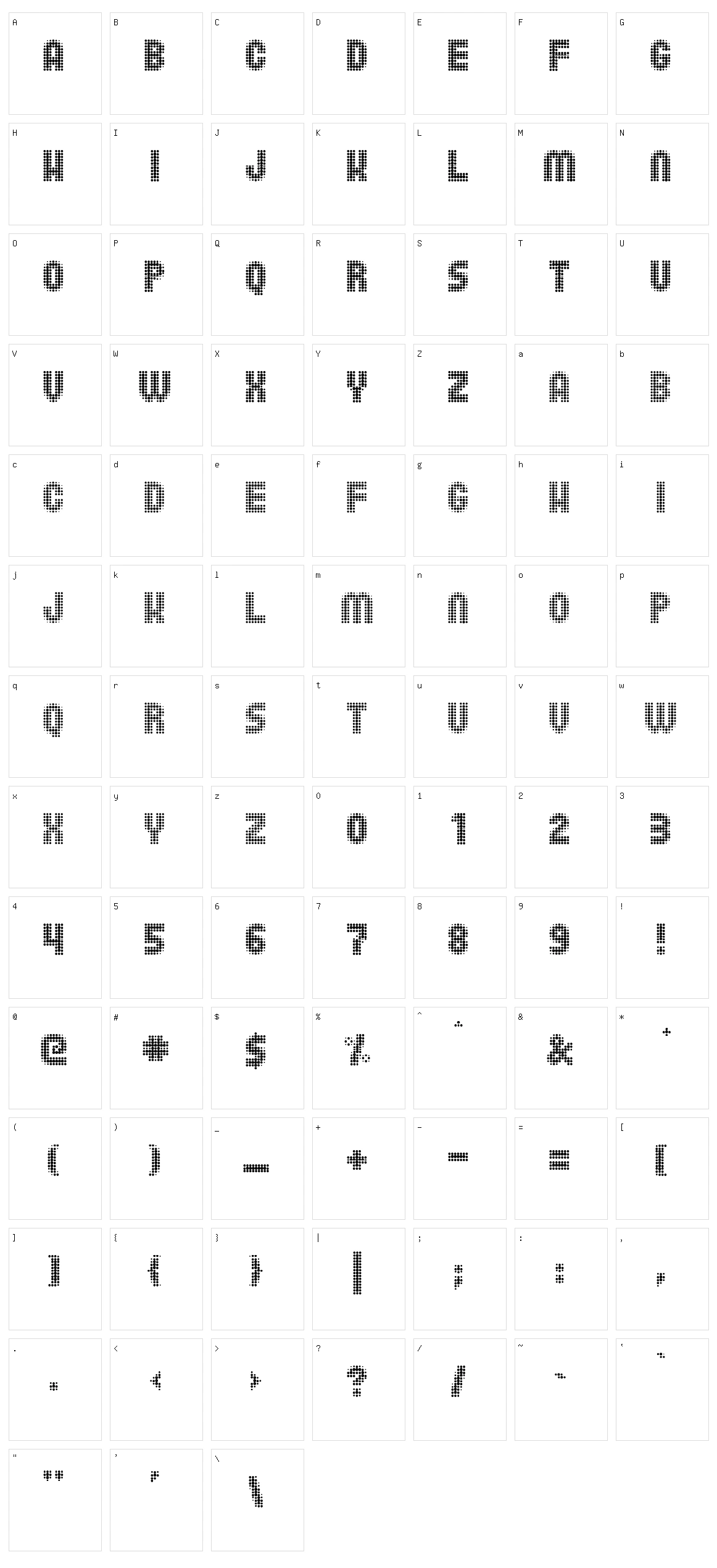
The free font Far Spot is carefully designed by imagex, showcasing a thoughtful balance of creativity and usability and falls under the Groovy font style. When you download the ZIP file, it contains only 44.29 KB of font files, making it lightweight and quick to download. Please review the license details below to understand permitted usage and distribution rights. If license information is not available, we recommend using this font for personal projects only or contacting the author directly for commercial usage permissions.